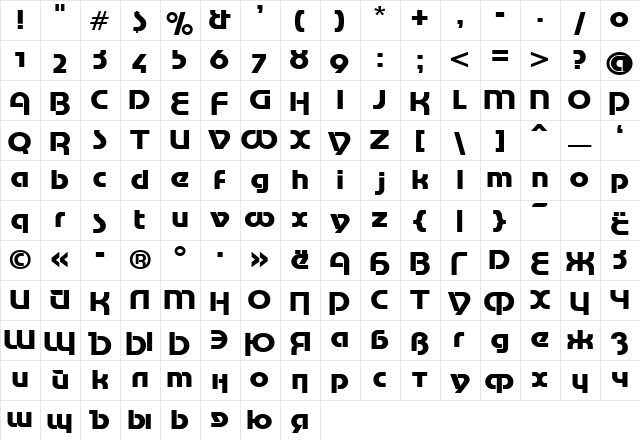
Motter Tektura Cyrilic Normal
Motter Tektura Cyrilic offers clean, dependable letterforms without strong stylistic allegiance, making it a practical choice for designers who need flexibility.